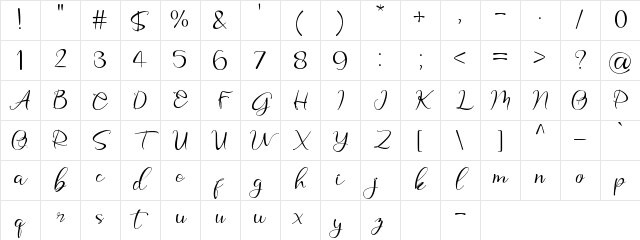
Complete Holy Christmas Tree Regular glyph index. Displaying only characters natively supported by Holy Christmas Tree Regular font.
Holy Christmas Tree is a composed and adaptable typeface that performs quietly and consistently across a wide range of design contexts.